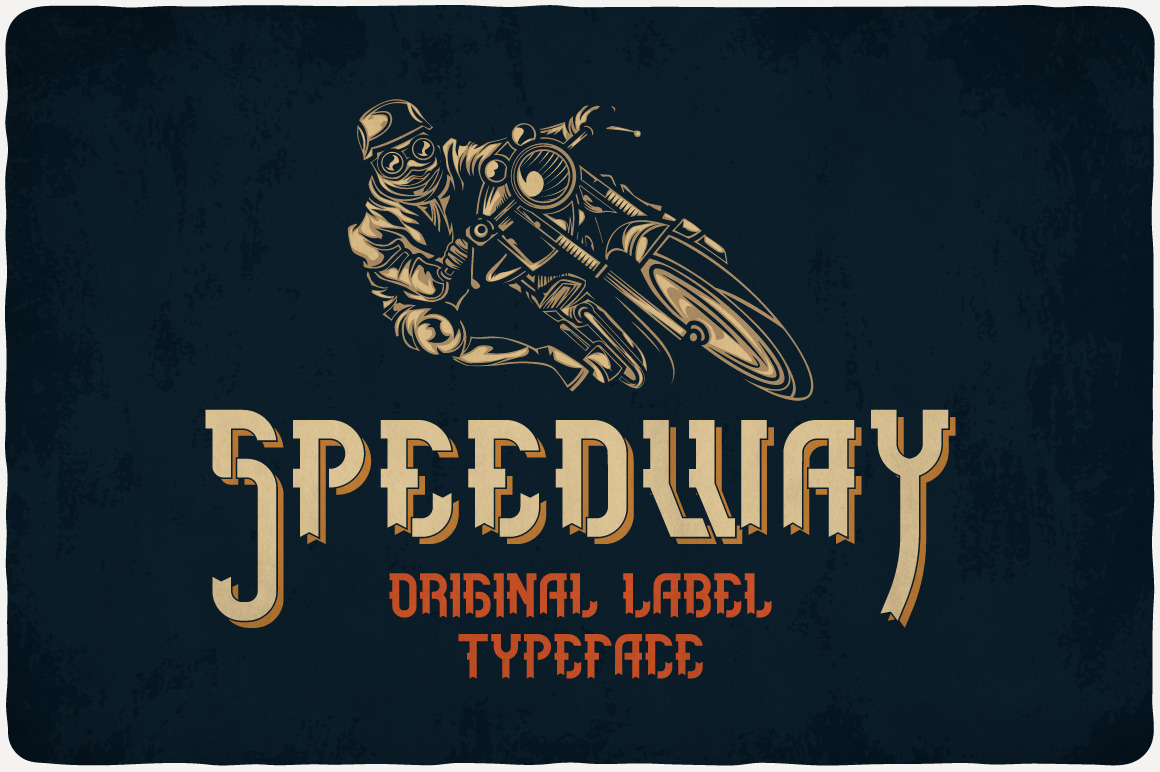
Speedway Typeface
Introducing a vintage look label typeface named "Speedway". It contains elements symbolizing flags and roads. Typeface is good viewed on any dynamic labels design.